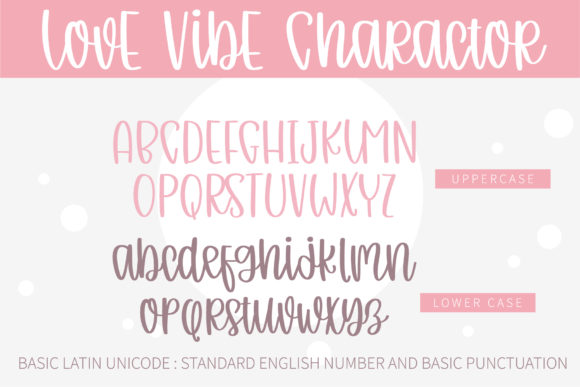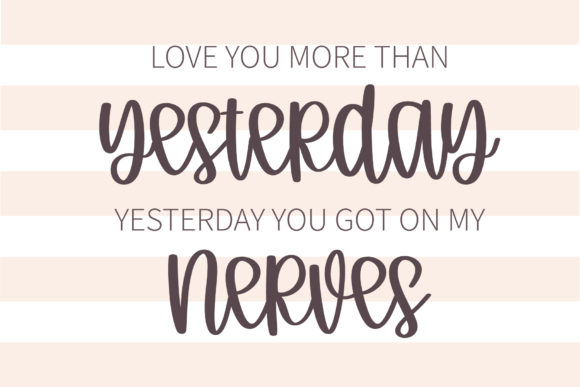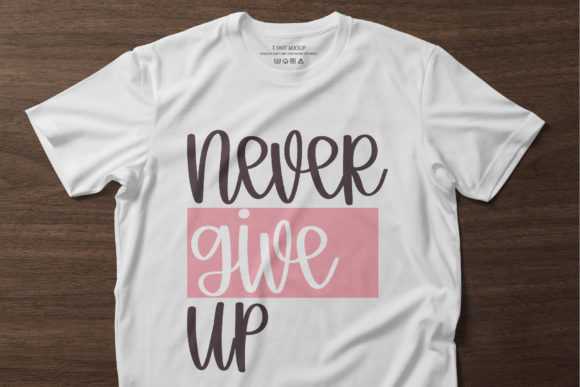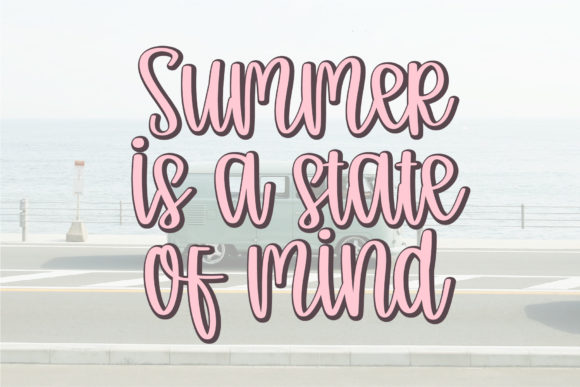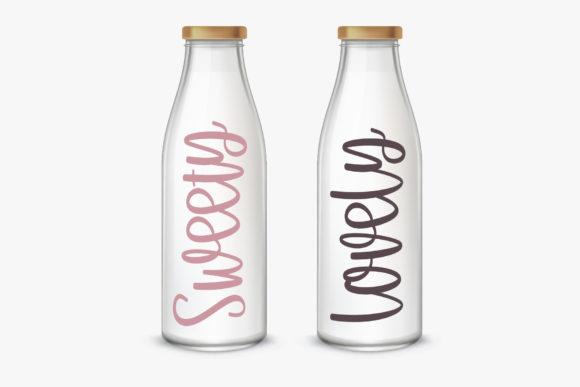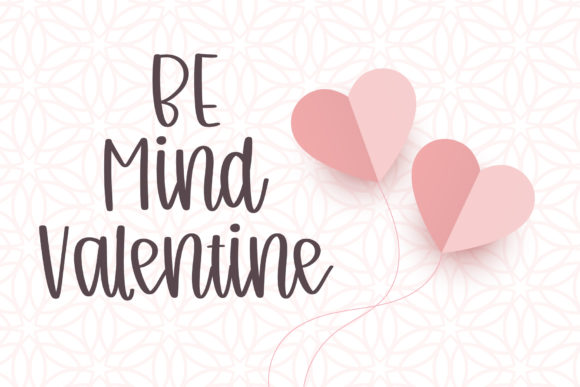
Introduction to Love Vibe Font
As a designer, have you ever found yourself stuck in a creative rut, searching for the perfect font to bring your project to life? I know I have. It was during one of these moments that I stumbled upon the Love Vibe Font – a gorgeous, yet quirky script font that has since become my go-to design resource.
With its natural and unique style, the Love Vibe Font is incredibly versatile, allowing designers to unleash their creativity and bring their vision to life. Whether you’re working on a high-quality design project or simply need a free download to spice up your social media posts, this font is sure to impress. Its transparent background and high-quality design make it the perfect addition to any creative project.
As a valuable resource for designers, the Love Vibe Font offers endless possibilities for expression and creativity. Its unique style and high-quality design make it a must-have for any design project, from elegant wedding invitations to playful social media graphics.
Key Features of Love Vibe Font
- High-quality, unique design: Love Vibe Font offers a distinctive and eye-catching aesthetic perfect for creative projects.
- Transparent background: This feature allows for seamless integration with various design elements, giving you flexibility in your design resource.
- High-resolution design: Love Vibe Font is designed at 300 DPI, making it suitable for high-quality print and digital applications.
- Perfect for creative projects: With its unique style and transparent background, Love Vibe Font is ideal for designing invitations, posters, and other visual materials.
Honest Review: Love Vibe Font
- ✨ High-quality design that’s perfect for creative projects.
- ✨ Unique and playful characters that add a touch of personality to any design.
- ⚠️ The font doesn’t have a transparent background option, which might limit its use in certain design scenarios.
- ⚠️ The character set is not as extensive as some other fonts I’ve worked with.
Overall, I’m impressed with the Love Vibe Font. It’s a great addition to any designer’s toolkit, and its free download makes it an attractive option for designers on a budget. While it may have some limitations, the font’s unique design and high-quality rendering make it a great choice for creative projects.
For the best results, use the Love Vibe Font in conjunction with a high-quality design. Experiment with different font sizes, colors, and arrangements to achieve the desired look.
The Love Vibe Font is perfect for various creative projects, including invitations, greeting cards, and social media graphics. Its transparent background makes it easy to integrate into any design.